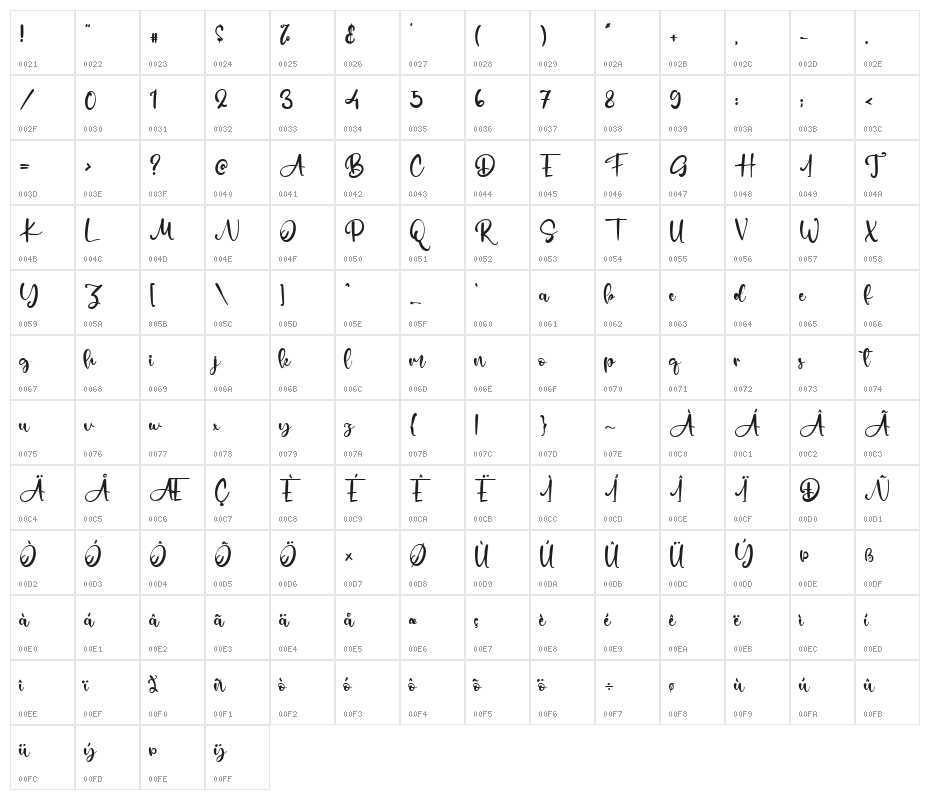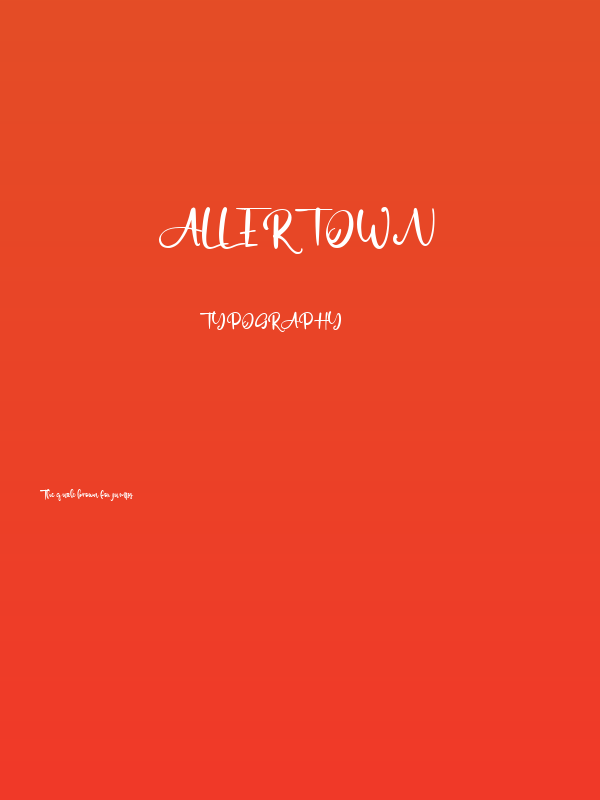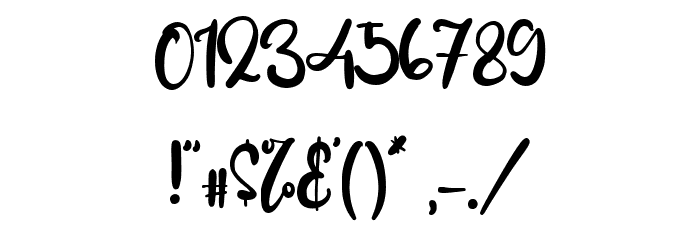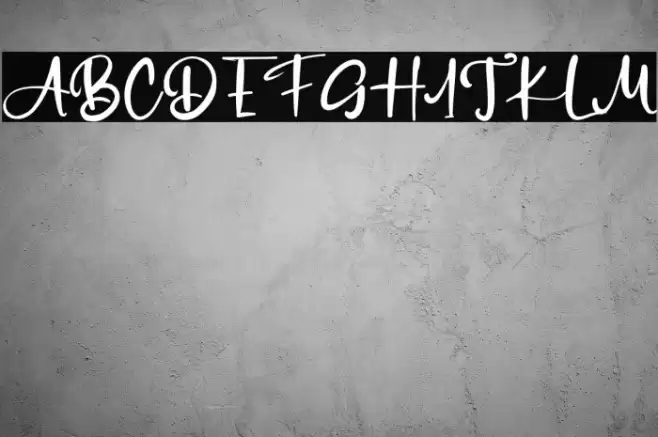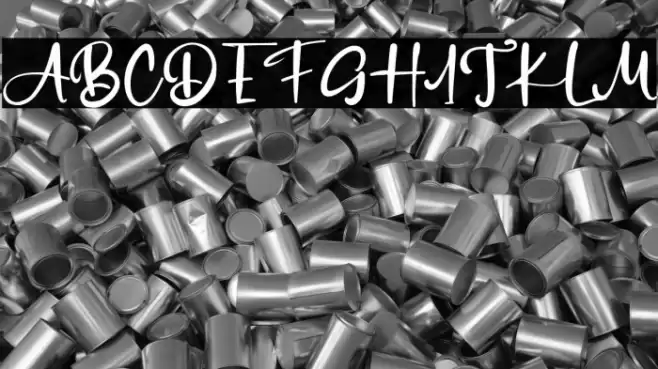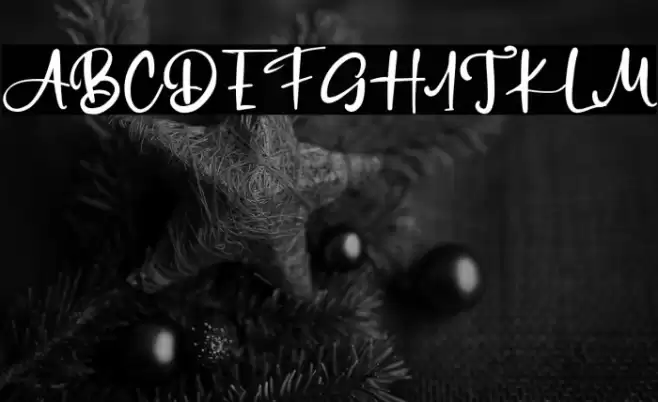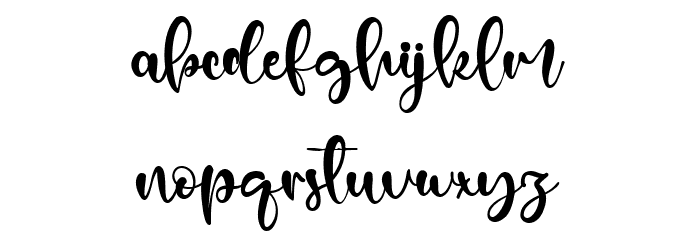
Allertown Font
Allertown Description
This font features a playful and elegant script style with a handwritten appearance. The characters are fluid and connected, giving a sense of movement and grace. The uppercase letters are bold and prominent, while the lowercase letters maintain a consistent flow with slight variations in stroke thickness. The numerals are clear and legible, matching the overall style of the alphabet. Special characters are creatively designed, adding a unique touch to the font. The overall look is modern yet timeless, making it versatile for various design projects.
| Proposed Projects | Ideal for wedding invitations, greeting cards, branding, and social media graphics. |